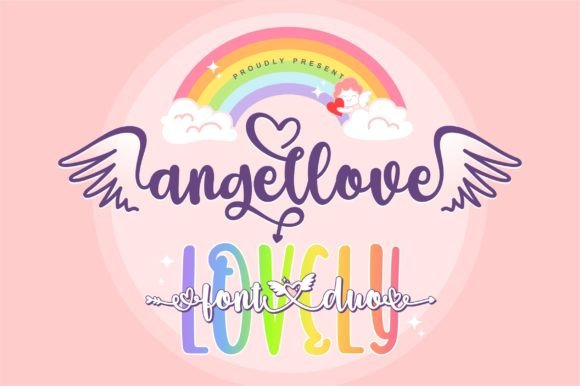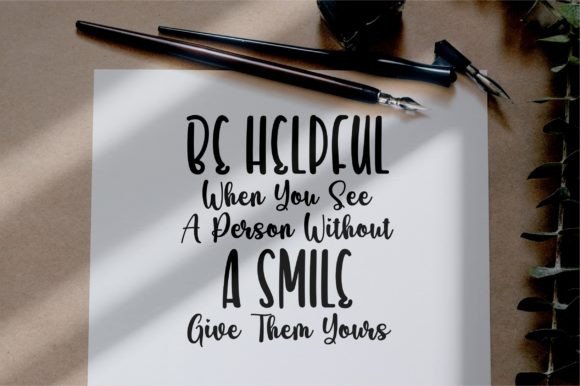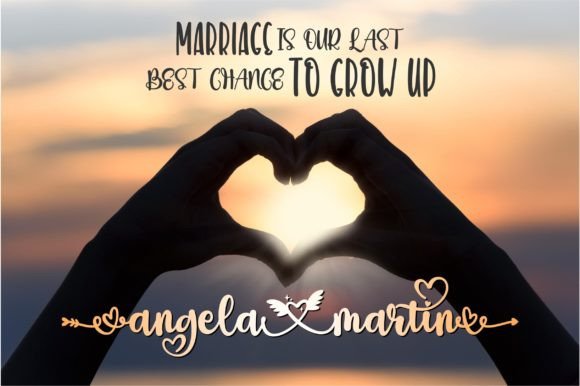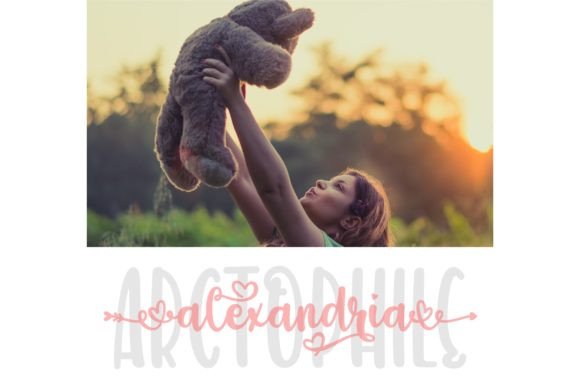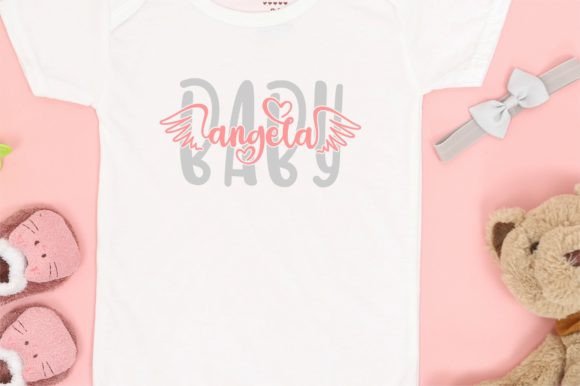
The Perfect Match for Your Next Creative Project
Do you remember that moment when you were brainstorming ideas for a special project and suddenly, the perfect font popped into your head? For many designers, finding the right font can make all the difference between a good project and a great one. And if you’re looking for a font that exudes love and elegance, look no further than the Angel Love Font.
This lovely duo font combines the delicate charm of a script with the clean lines of a sans serif, making it perfect for a wide range of applications, from headlines and greeting cards to wedding invitations. With its romantic touch, the Angel Love Font is sure to add a special something to each of your creations. Plus, its PUA encoding means that you can easily access all of the glyphs and ligatures, giving you the freedom to get creative.
As a designer, you know how valuable it is to have a versatile font in your toolkit. The Angel Love Font is a must-have for any project that requires a touch of love and elegance, and with its ease of use, you’ll be able to bring your vision to life in no time.
Angel Love Font Key Features
- Font Family: Angel Love Font is a unique, hand-drawn font with a romantic and elegant feel, ideal for wedding invitations, love letters, and other romantic occasions.
- Font Size: Available in various font sizes, from 8 to 72 points, making it suitable for a range of applications, from small captions to large headings.
- Resolution: Designed to be high-resolution, making it perfect for printing and digital use.
- Unique Characteristics: The font features intricate details, swashes, and flourishes, adding a touch of whimsy and romance to any text.
- Characters: Includes a wide range of characters, including uppercase and lowercase letters, numbers, and punctuation marks, making it suitable for everyday use.
Angel Love Font Review
I recently had the chance to work with the Angel Love Font and I must say, it’s a sweet addition to any design project. ✨ Here are some things that stood out to me:
- Cute and playful feel – The Angel Love Font is perfect for creating a whimsical and lighthearted atmosphere in your designs.
- Highly customizable – This font comes in a range of styles and weights, allowing you to tailor it to fit your project’s unique needs.
- Perfect for branding and marketing materials – The Angel Love Font’s charm and personality make it an excellent choice for creating engaging brand identities.
However, I did encounter a few limitations that are worth noting: ⚠️
- Limited legibility in smaller font sizes – While the Angel Love Font is beautiful, it can become difficult to read at very small sizes.
- Not suitable for formal or professional projects – The font’s playful nature makes it better suited for more casual or creative projects.
Overall, I’m impressed with the Angel Love Font’s versatility and charm. While it may have some limitations, it’s a great choice for designers looking to add a touch of whimsy to their projects.
To get the most out of the Angel Love Font, try the following:
- Use it in combination with other elegant fonts to create a cohesive and sophisticated look.
- Experiment with different font sizes and styles to add depth and visual interest to your design.
- Use the font’s unique characteristics to add a touch of whimsy and personality to your design.